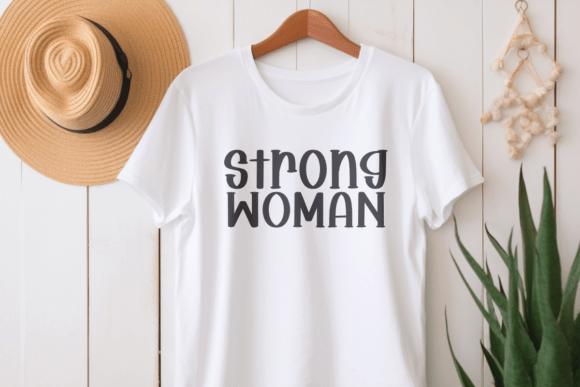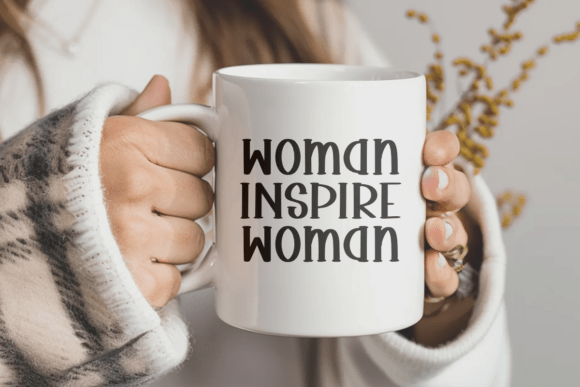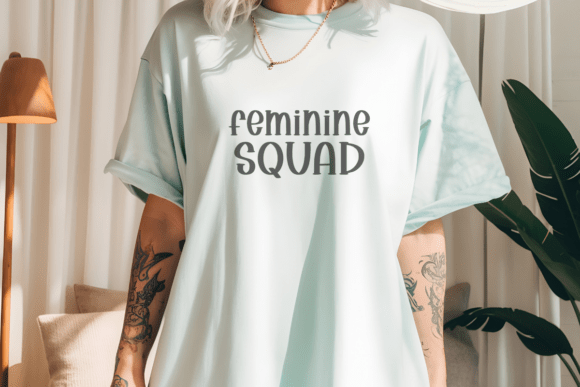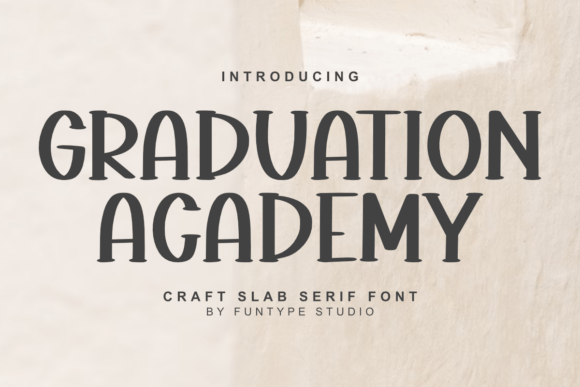
Introduction to Graduation Academy Font
Graduation Academy is a versatile craft slab serif font that embodies a friendly yet structured aesthetic, perfect for a wide range of creative projects.
Its clean, bold lines and robust serifs give it a sturdy and dependable feel, while the slightly rounded edges add a touch of approachability and warmth This font is perfect for celebrating achievements and adding a professional yet charming touch to various designs.